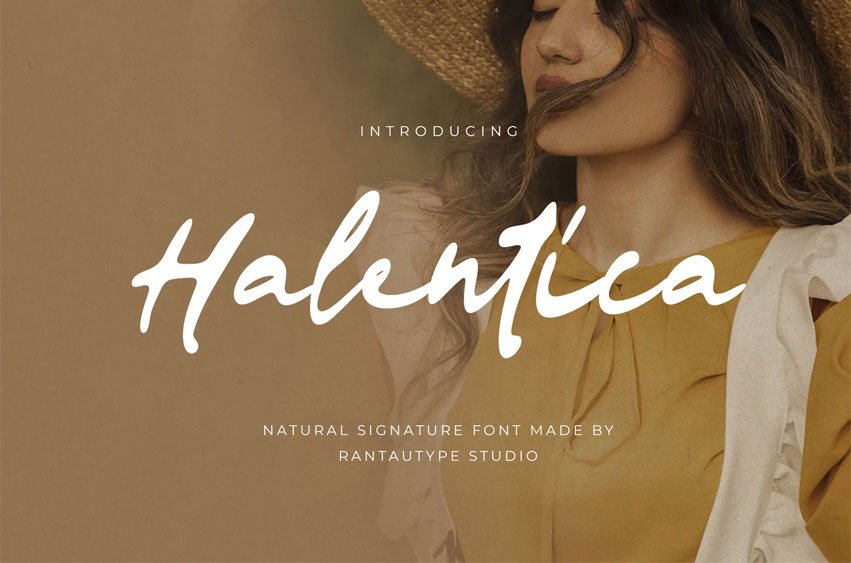
Halentica Font is a signature font of hand-drawn strokes, blending organic flow with artistic expression. Each letter feels alive, infused with texture and motion that echoes the natural movement of a brush on canvas.
Halentica is a perfectly choice for any creative endeavor, creating, modern, lifestyle design such as logotype, title, cover, branding, invitations, wedding designs, display and magazine, social media posts, advertisements, printed quotes, product packaging, corporate brand, product designs, labels, photography, watermarks, special events and any other project with handwritten feel.